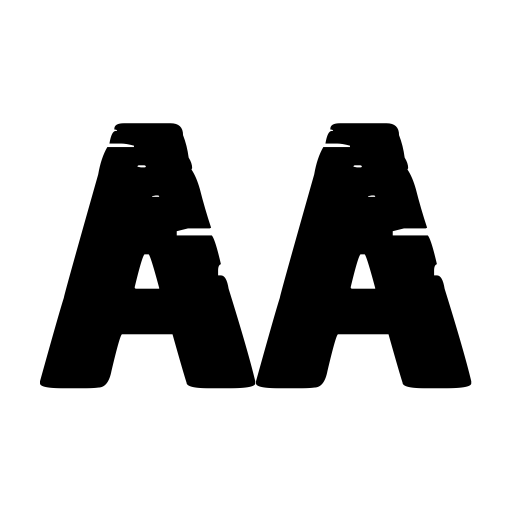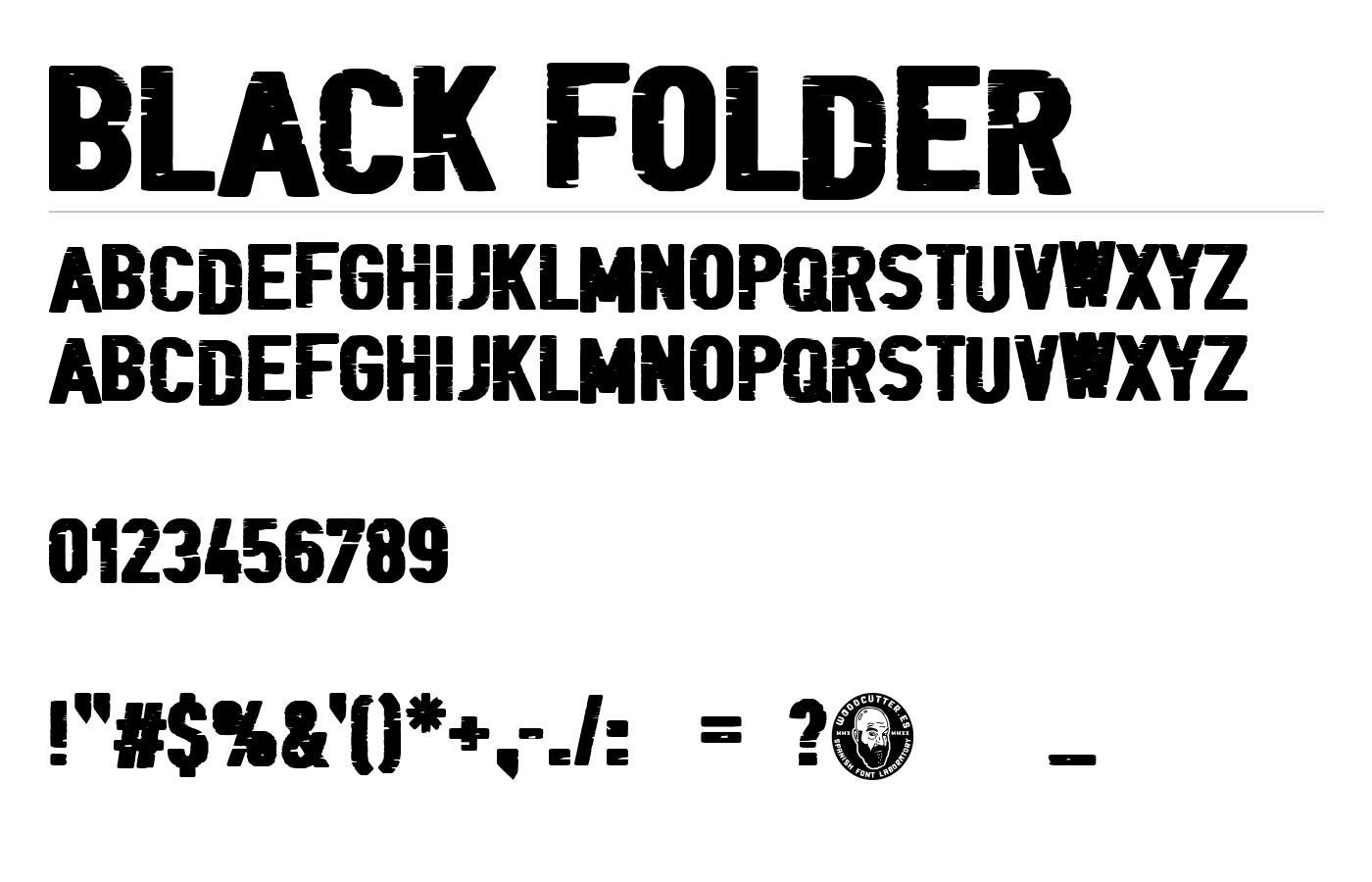
Black Folder is a bold, condensed sans serif font with a distressed, grunge texture that adds character and ruggedness. Its strong, blocky letterforms with uneven edges and high x-height make it ideal for eye-catching headlines, posters, and branding that seek a vintage or industrial feel. This font works best where a bold, edgy statement is needed, giving designs a raw, authentic personality.
Black Folder Font